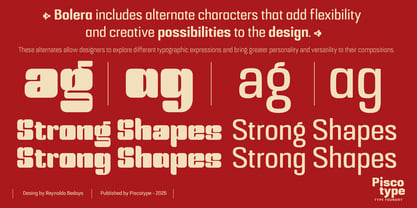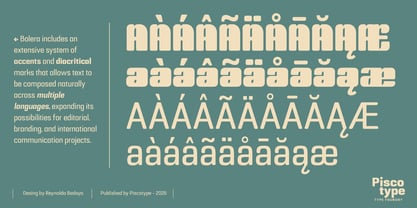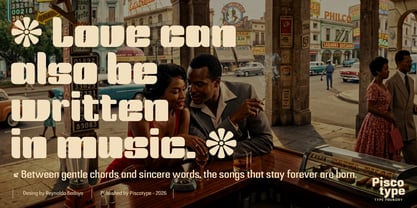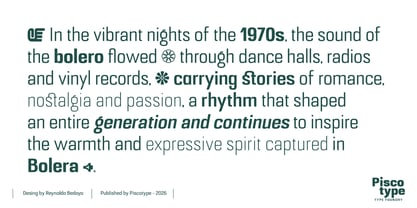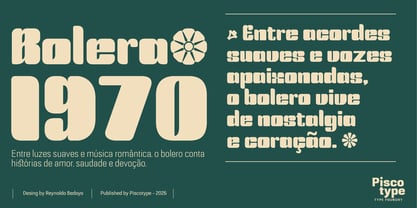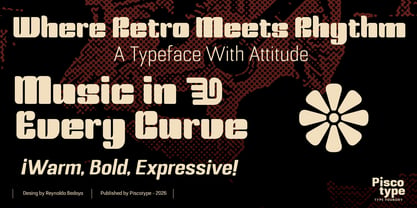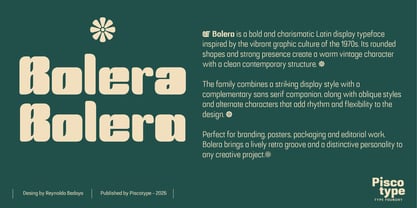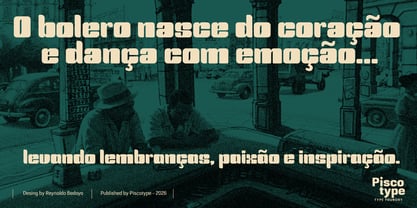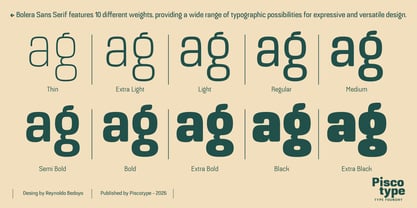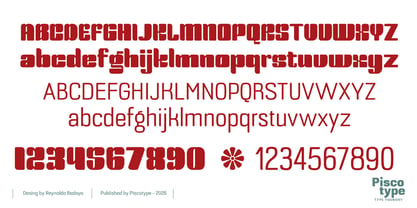
Bolera
by Piscotype
The Bolera Font Family was designed by Reynaldo Bedoya and published by Piscotype. Bolera contains 23 styles and family package options. More about this family
Bolera is a bold and charismatic Latin display typeface inspired by the vibrant graphic culture of the 1970s. Its rounded shapes and strong black presence create a warm vintage feeling while maintaining a clean and contemporary structure. The family includes a striking display style, a complementary sans serif companion, and oblique styles, designed to work seamlessly across expressive headlines, branding systems and creative layouts. Bolera also features alternate characters, allowing designers to add variation and personality to their typographic compositions. Bolera is available as a variable font, offering greater flexibility and control for modern design workflows. With its lively personality and retro groove, Bolera is perfect for visual identity, posters, packaging, editorial design and music-inspired projects that require a distinctive and energetic typographic voice.
Designers: Reynaldo Bedoya
Foundry: Piscotype